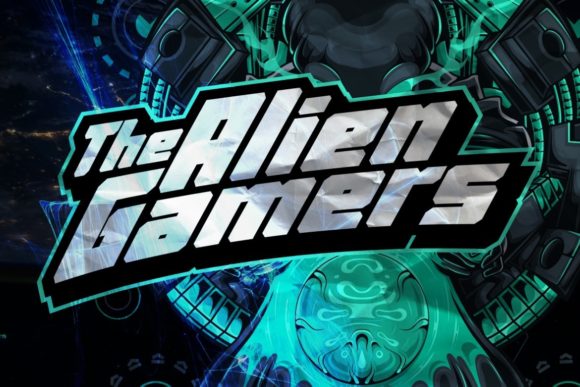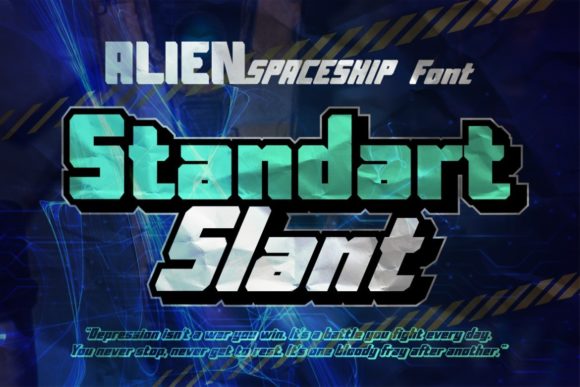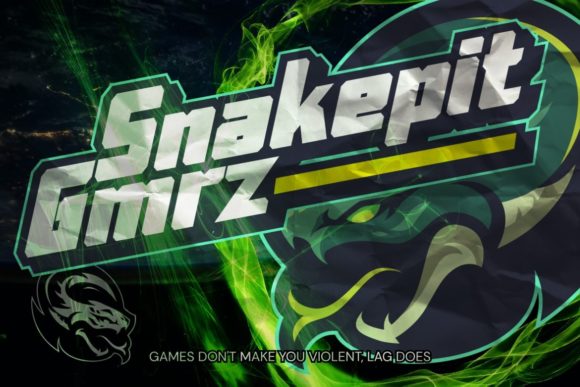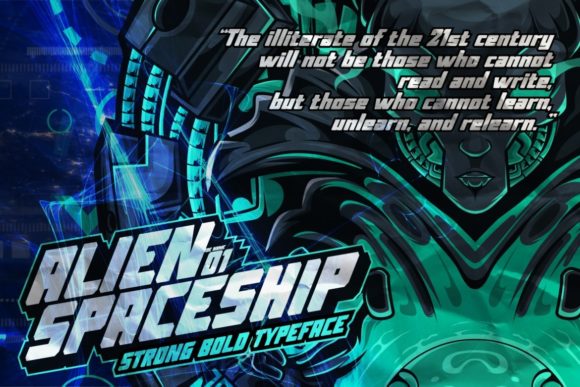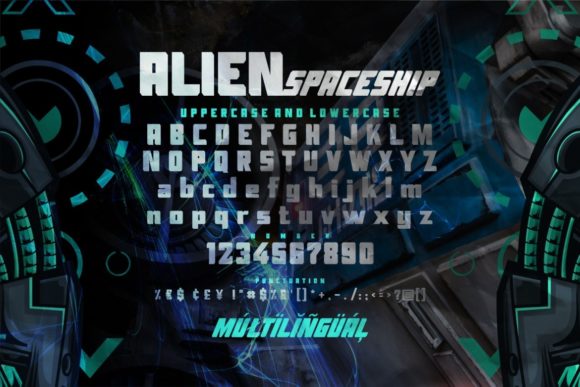
Introducing Alien Spaceship Font: The Ultimate Futuristic Display Font
Are you tired of using the same old fonts for your designs? Do you want to add a touch of futurism and uniqueness to your work? Look no further than the Alien Spaceship Font. This cool, futuristic, and thick lettered display font is perfect for designers and crafters who want to take their work to the next level.
What is Alien Spaceship Font?
Alien Spaceship Font is a display font designed to give your work a high-tech, otherworldly feel. Its thick, bold letters are perfect for making a statement, and its futuristic design is sure to grab attention. Whether you’re working on a web design, business card, or any other project that requires a unique touch, Alien Spaceship Font is the perfect choice.
Key Features of Alien Spaceship Font
- Cool and Futuristic Design: Alien Spaceship Font has a sleek, modern design that’s perfect for projects that require a high-tech look.
- Thick Lettered: The font’s thick letters make it perfect for display purposes, and ensure that your text stands out.
- Highly Versatile: Alien Spaceship Font can be used for a wide range of projects, from web designs to business cards, posters, and more.
- Easily Readable: Despite its thick, bold design, Alien Spaceship Font is still easy to read, making it perfect for use in a variety of contexts.
Uses for Alien Spaceship Font
So, what can you use Alien Spaceship Font for? The possibilities are endless. Here are a few ideas to get you started:
- Web Design: Use Alien Spaceship Font to add a touch of futurism to your website’s design. It’s perfect for headings, titles, and other display text.
- Business Cards: Make your business cards stand out with Alien Spaceship Font. Its bold design is sure to grab attention.
- Posters and Flyers: Use Alien Spaceship Font to create eye-catching posters and flyers that are sure to grab attention.
- Logos and Branding: Alien Spaceship Font is perfect for creating unique logos and branding materials that require a high-tech look.
Tips for Using Alien Spaceship Font
Here are a few tips for getting the most out of Alien Spaceship Font:
- Use it Sparingly: While Alien Spaceship Font is perfect for display purposes, it can be overwhelming if used too much. Use it sparingly to create emphasis and add visual interest.
- Pair it with Other Fonts: Alien Spaceship Font pairs well with a variety of other fonts. Experiment with different combinations to find the one that works best for your project.
- Experiment with Colors: Alien Spaceship Font looks great in a variety of colors. Experiment with different colors to find the one that works best for your project.
Alien Spaceship Font is a cool, futuristic, and thick lettered display font that’s perfect for designers and crafters who want to add a touch of high-tech uniqueness to their work. Its highly versatile design makes it perfect for a wide range of projects, from web designs to business cards, posters, and more. With its bold design and easily readable letters, Alien Spaceship Font is sure to become a go-to font in your collection.